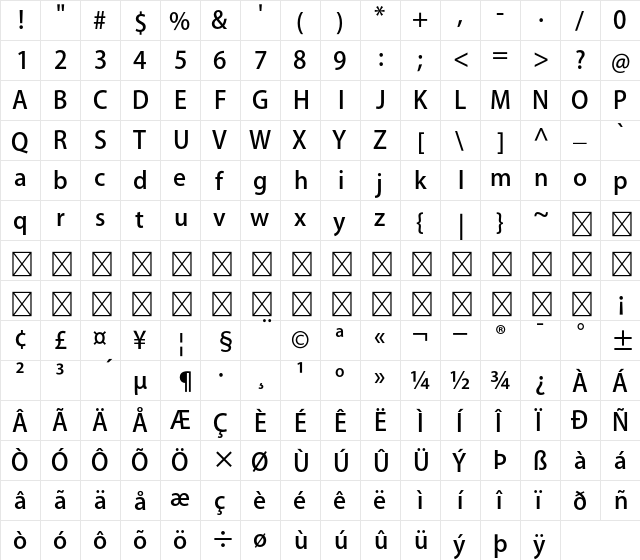
Kozuka Gothic Pr6N M Font Preview
Kozuka Gothic Pr6N M
| Designer | Masahiko Kozuka |
Design Context for Kozuka Gothic Pr6N Typeface
Kozuka Gothic Pr6N has the quiet confidence of well-executed sans-serif typography: versatile, unobtrusive, and dependable at any size.
Font Pairing: Works well alongside a characterful serif or display font that can carry the expressive load while Kozuka Gothic Pr6N handles the functional copy.
Pro Tip: Pair Kozuka Gothic Pr6N with a display or serif font for headlines — its neutral character makes it an excellent supporting player in complex typographic systems.